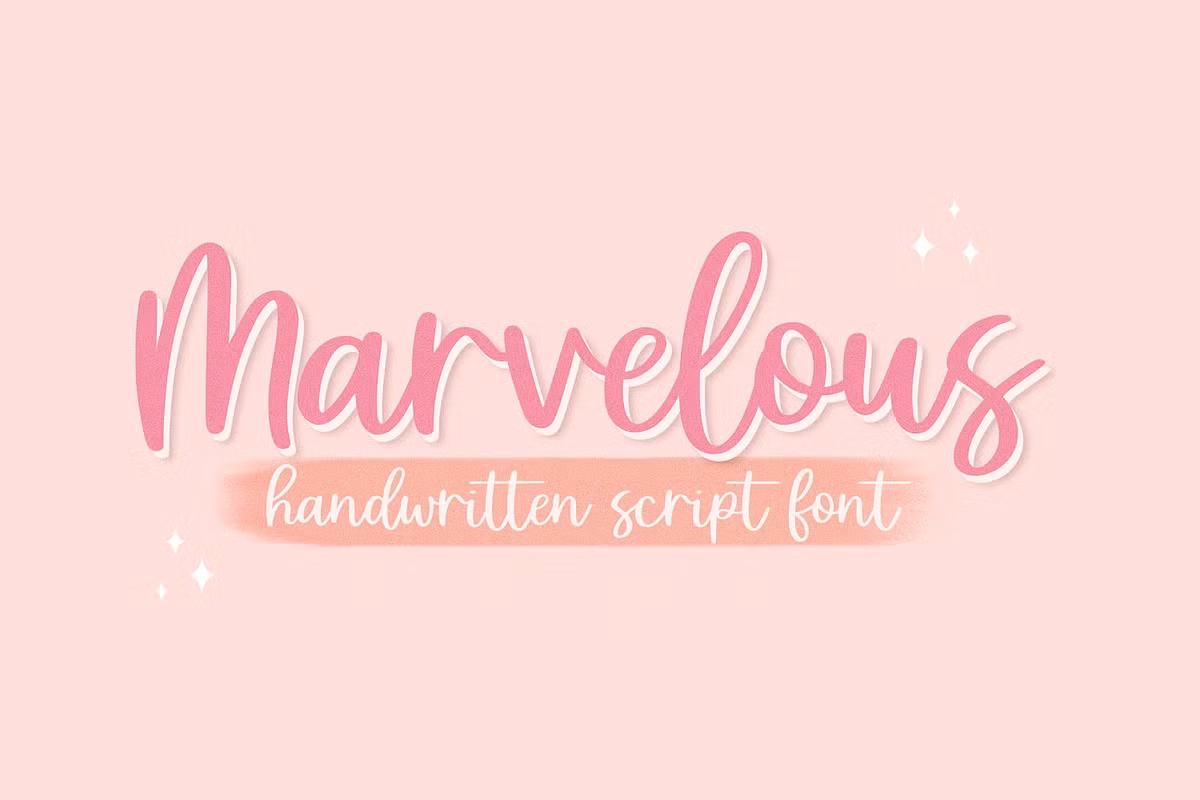
The Marvelous Handwritten Script Font Free Download is an elegant and stylish script font that adds a personal, handcrafted touch to your designs. With its flowing curves and sophisticated letterforms, this font is perfect for creating logos, invitations, greeting cards, and other projects that require a refined, handwritten look. The graceful, artistic style of the Marvelous Handwritten Script Font brings a sense of warmth and authenticity to your typography, making it ideal for both personal and professional designs. Please note, for commercial use, a license purchase is required. However, you can easily download the Marvelous Handwritten Script Font Free Download for free for personal use and experiment with its beautiful script style in your projects. Whether you're designing for weddings, branding, or creative endeavors, this font will elevate your designs with a touch of elegance and charm. Download the Marvelous Handwritten Script Font Free Download today and enhance your work with its graceful beauty.